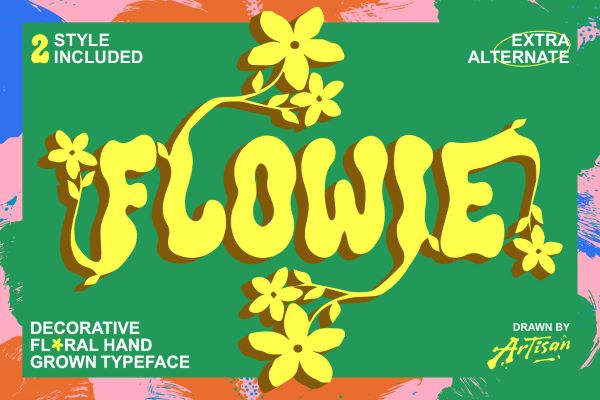
Flowie Font
Flowie by Artisan Template is a free floral handwritten font that captures the playful, sun-drenched energy of blooming gardens and tropical summers — its soft curves, organic shapes, and beautifully integrated floral details giving every letterform a distinctly handcrafted warmth. Coming in two styles (Regular and Shadow) plus extra alternates for mixing and matching. The free demo version is for personal use; the full commercial license is available via Creative Market.